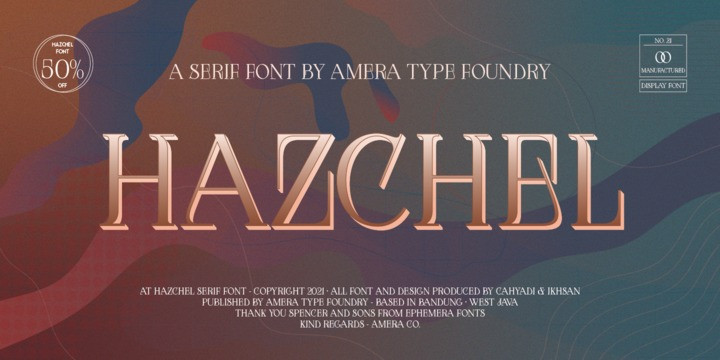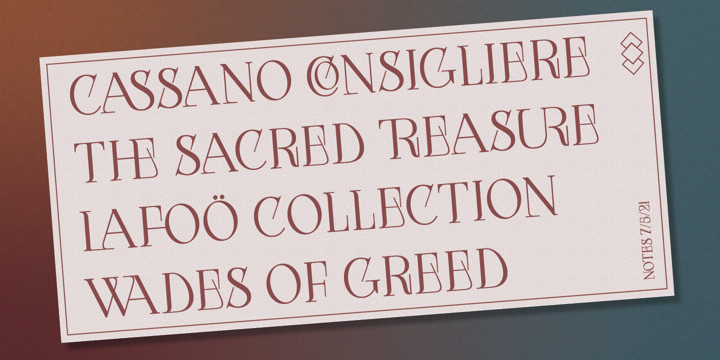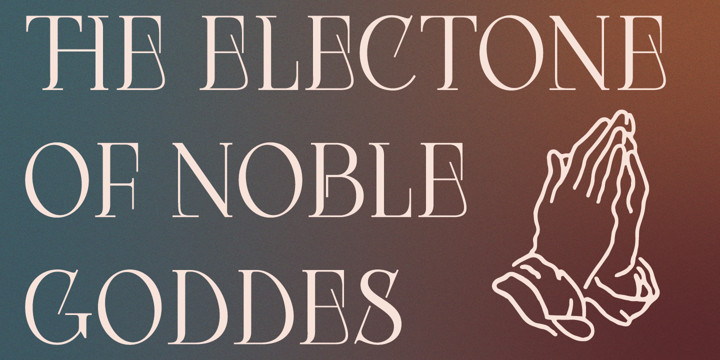
AT Hazchel Font
Hazchel was inspired by experimental fonts that we visualized subconscious shapes capable of immersing our souls even more deeply . The decorative typeface makes this font easy to read and thus acquires a modern value for titles, signage and more decoration. This font also comes with 80+ special ligature style